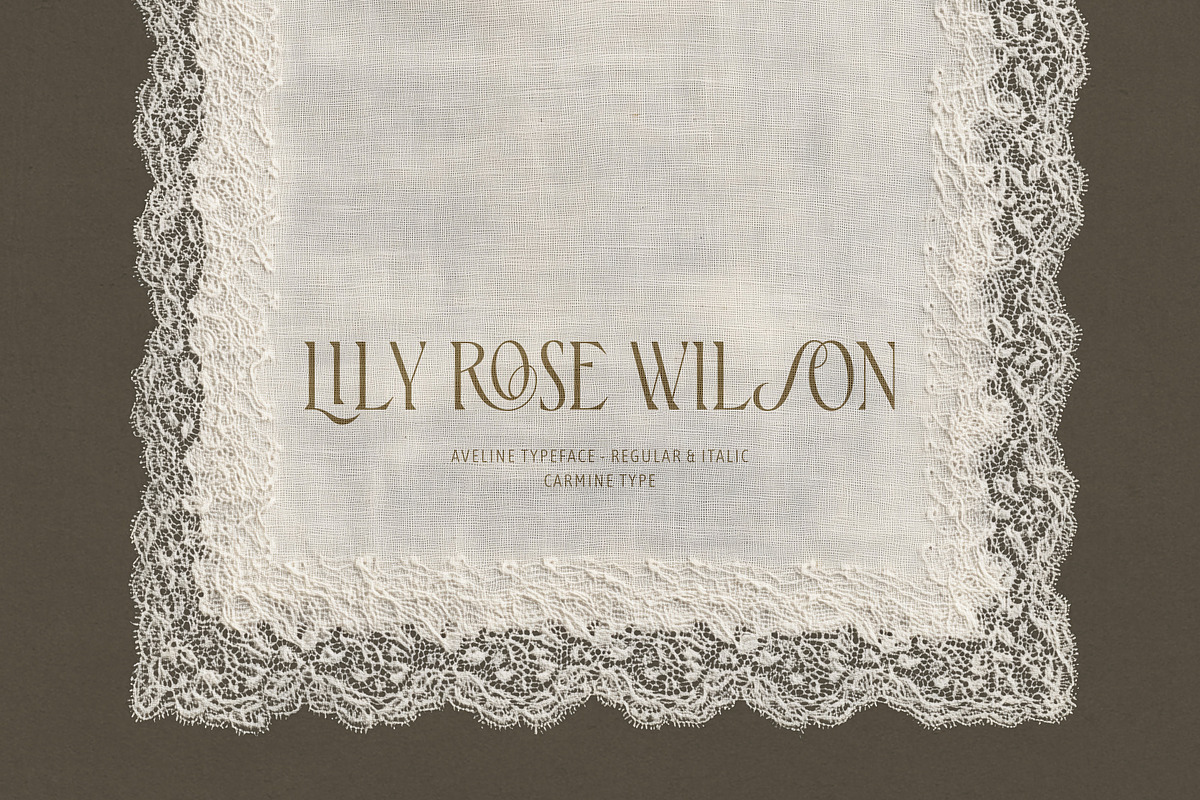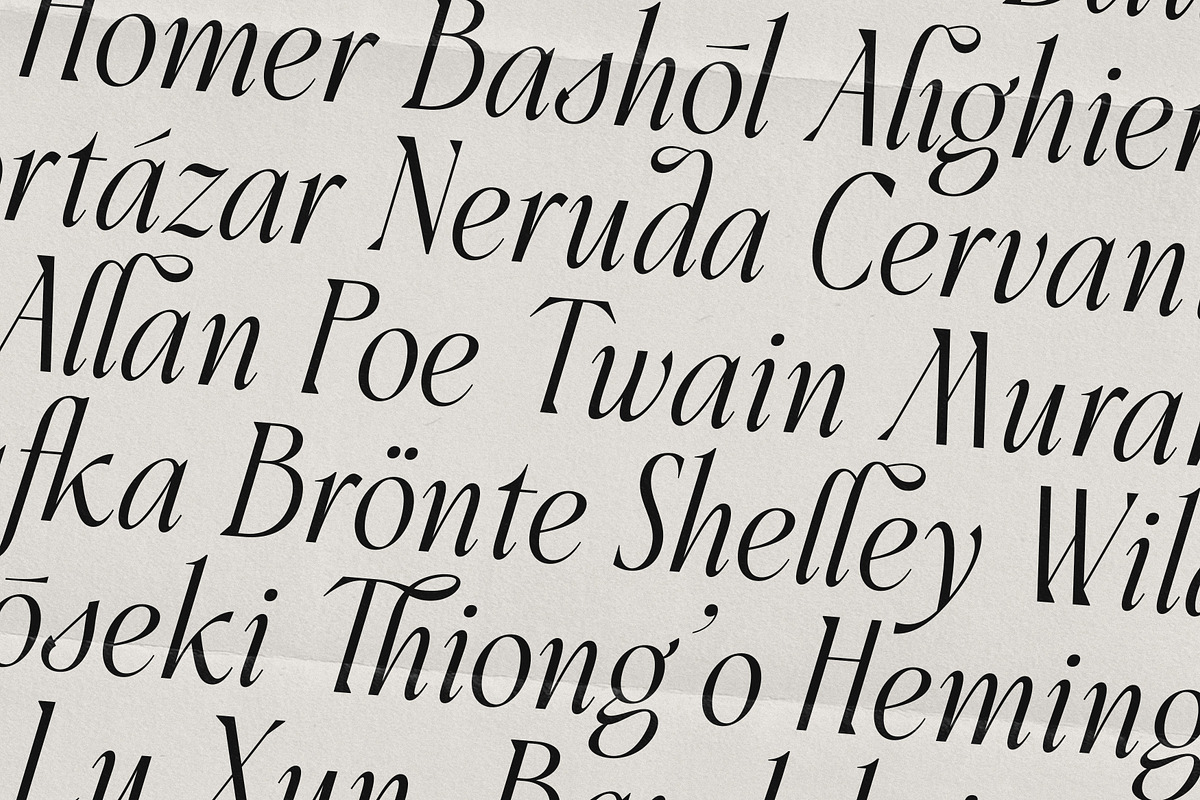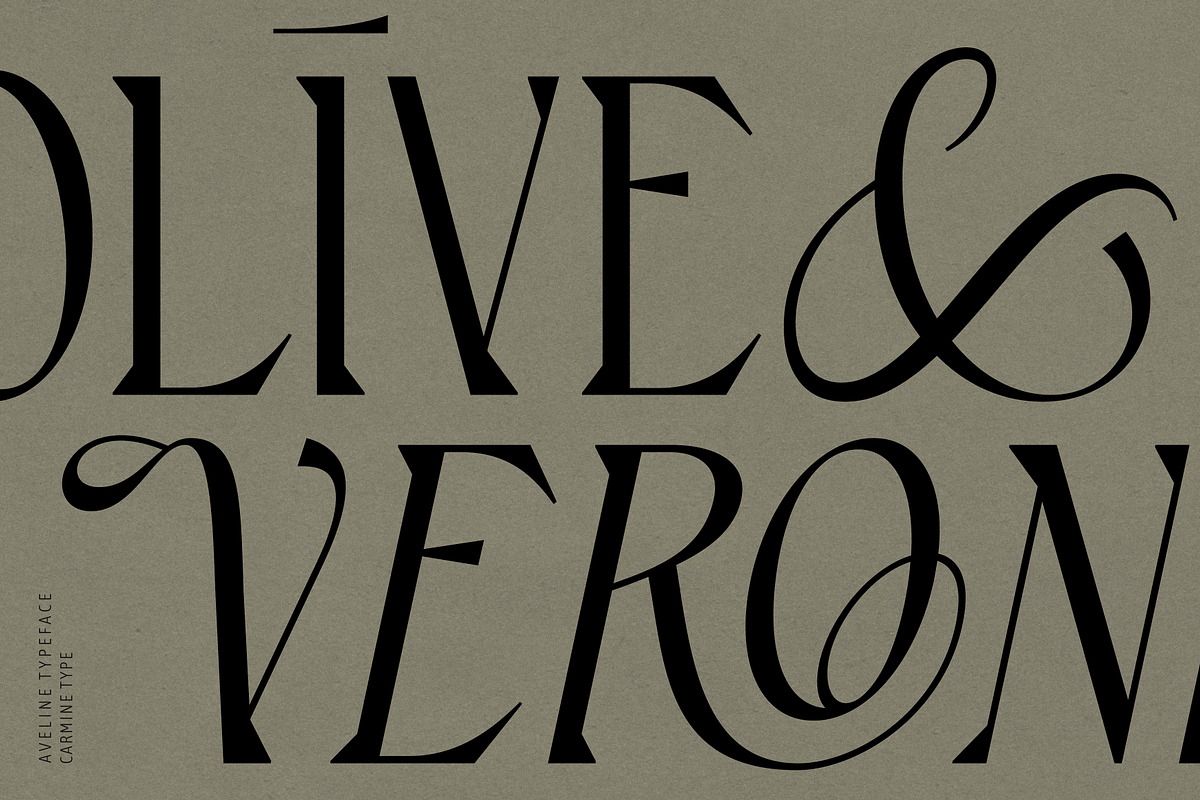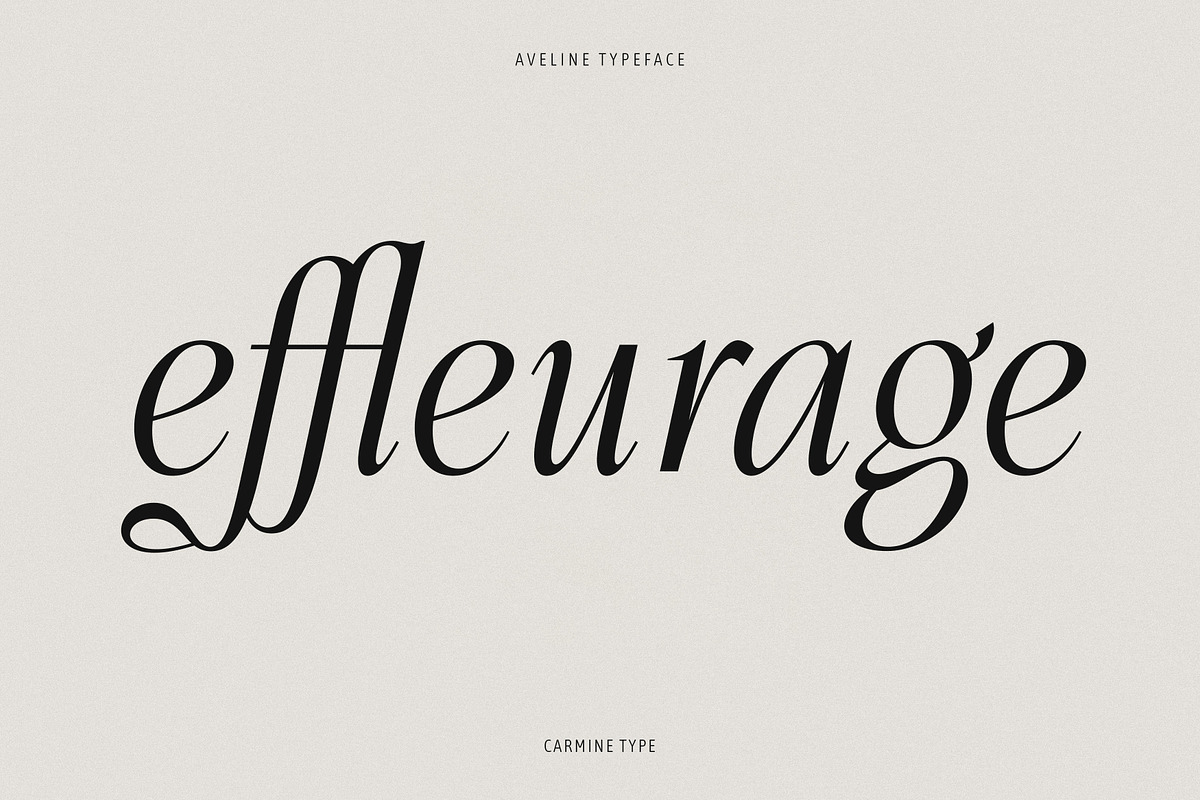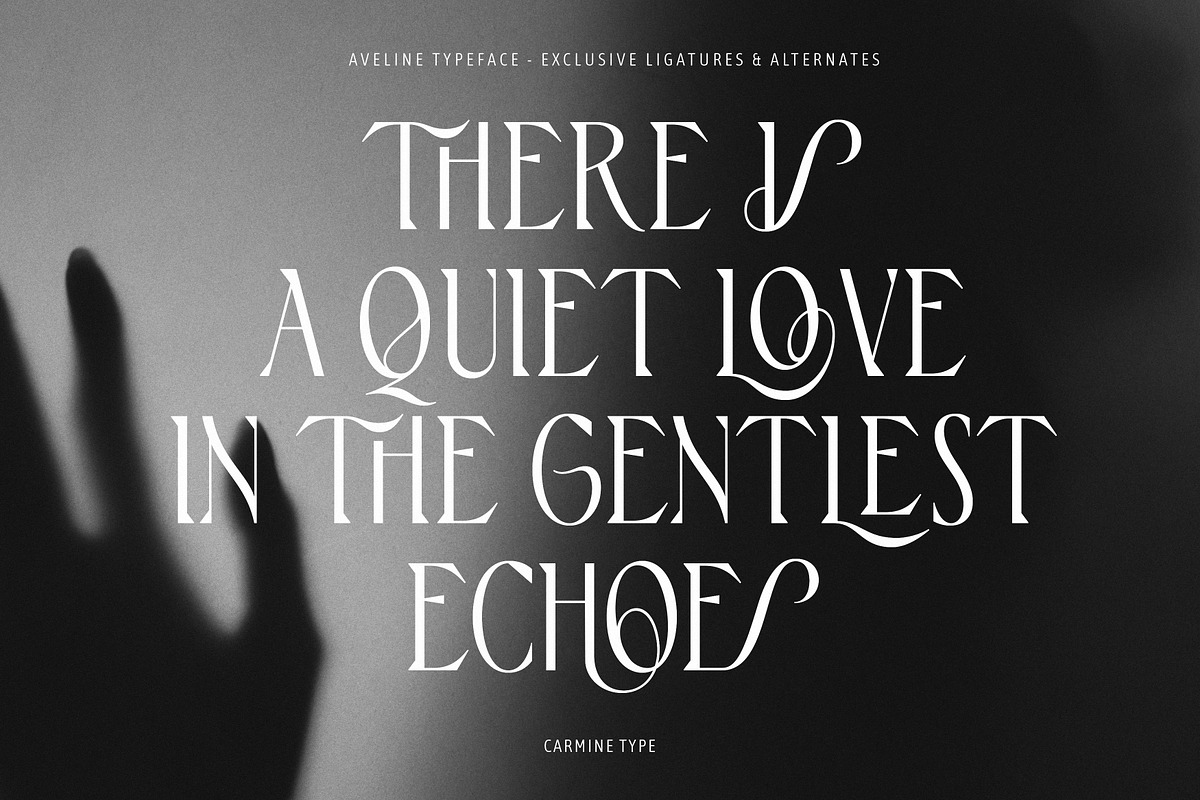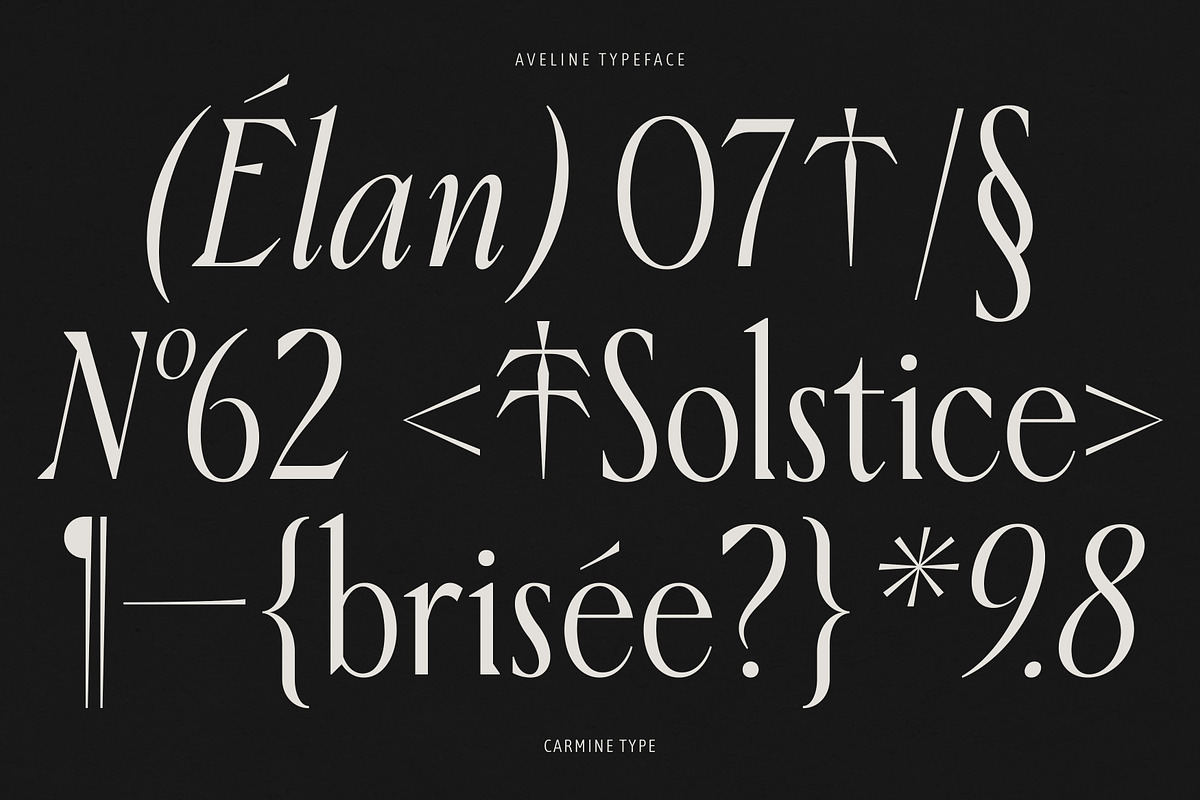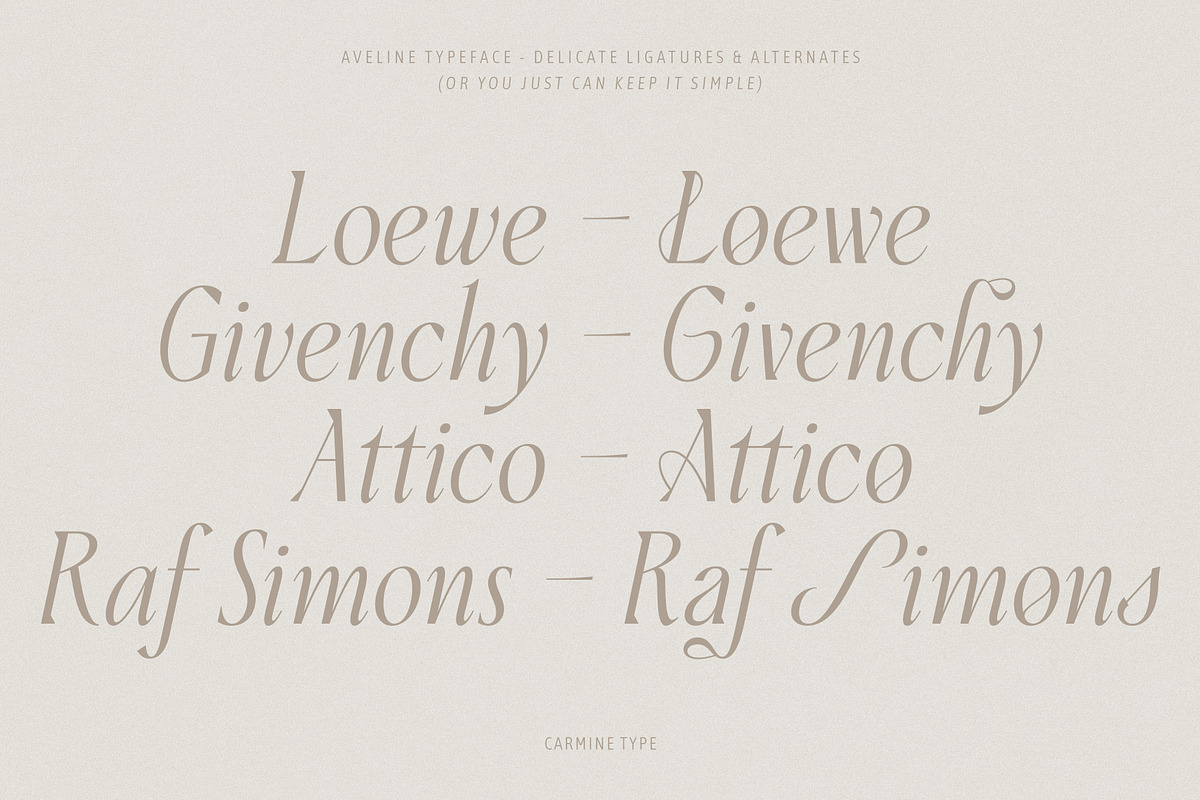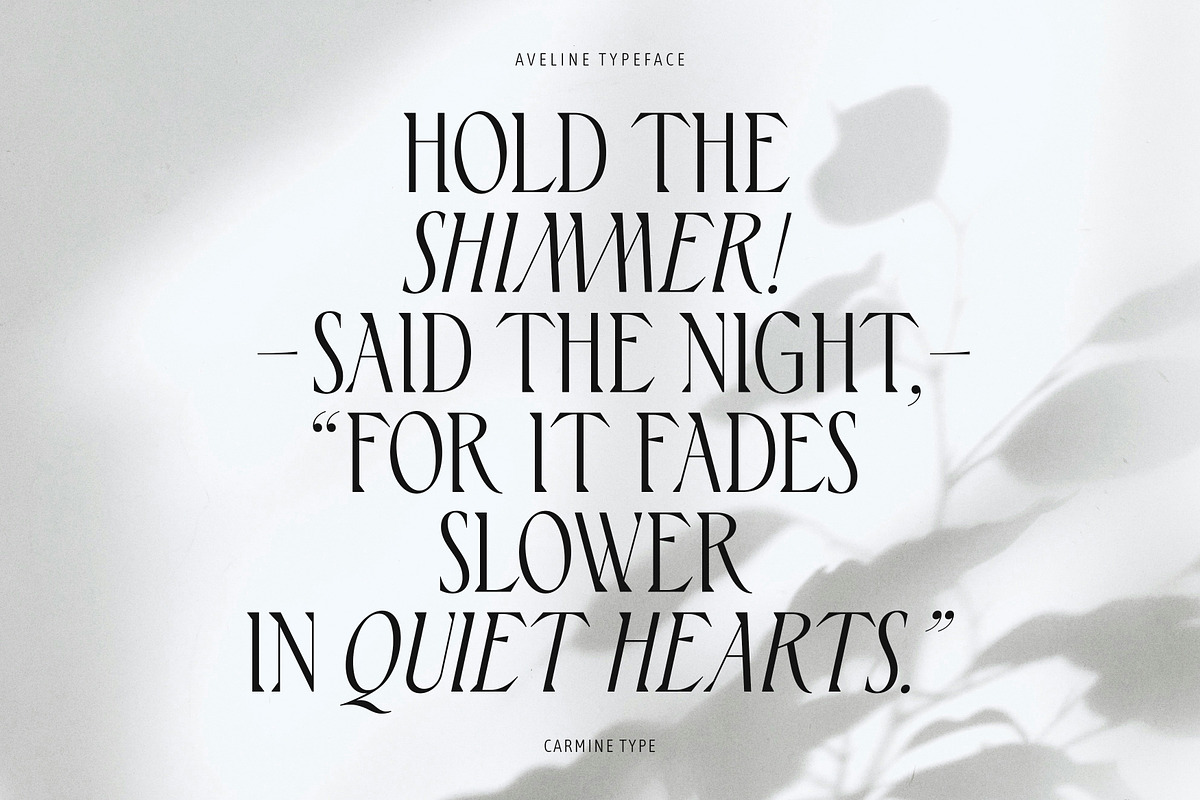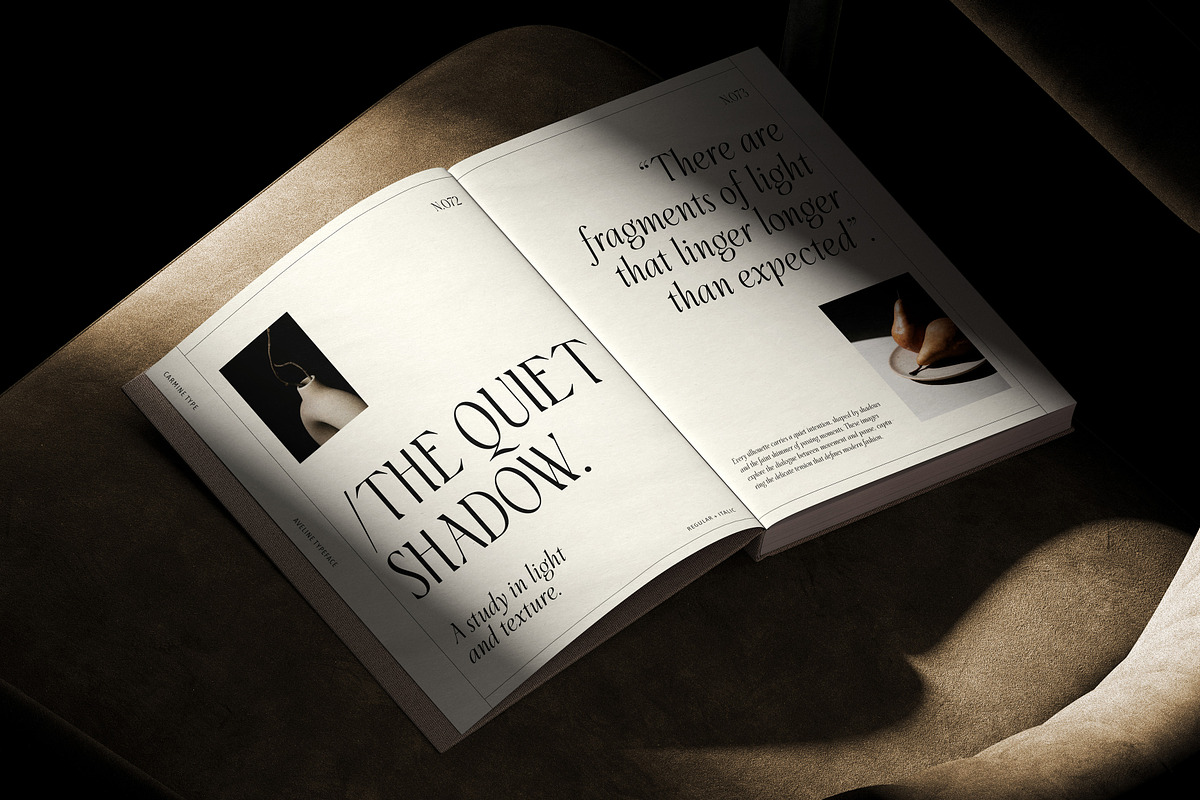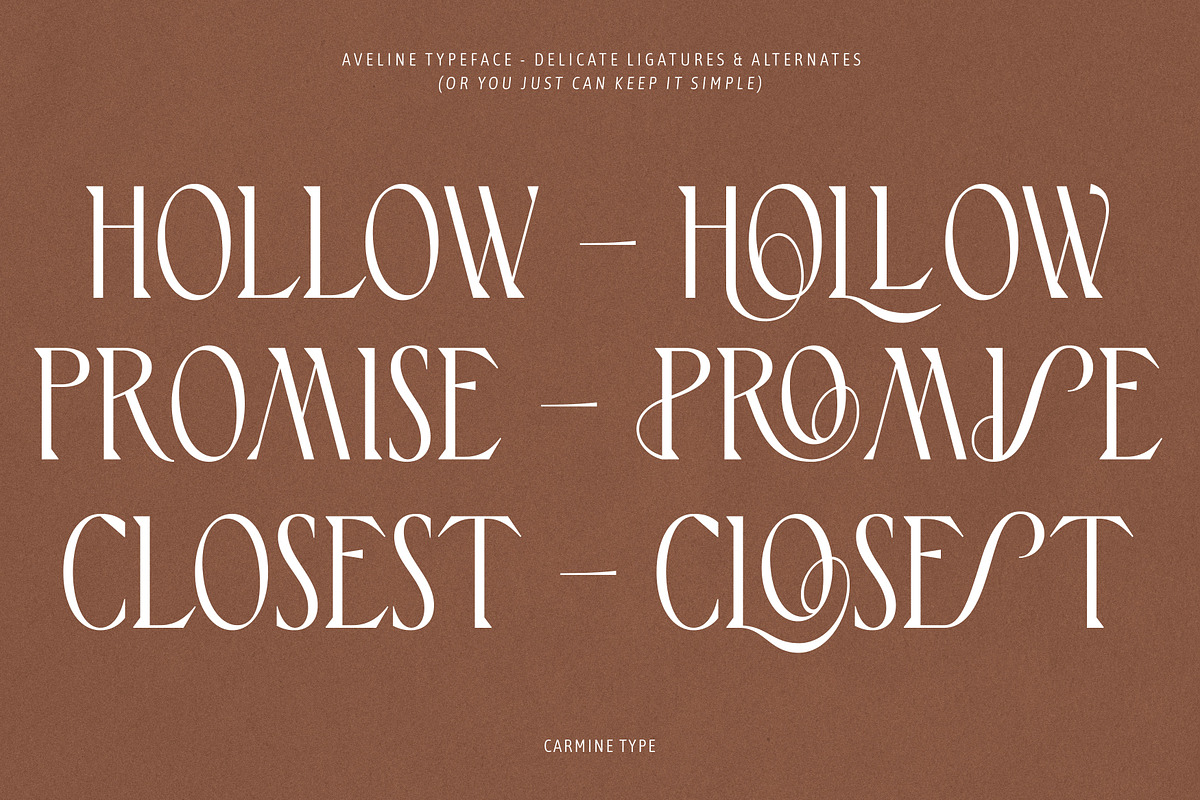
Aveline, Soft Serif with Ligatures
Aveline is a versatile hybrid serif, a meeting point between the clarity of a modern sans and the subtle charm of a serif. Created primarily for display, it also reads beautifully in text blocks, thanks to its balanced proportions and its two styles: Roman & Italic.
Its sophisticated ligatures and discreetly Victorian-inspired alternates add a touch of romance without becoming ornamental or overwhelming. The detailing is gentle, intentional, and designed to give each word a quiet sense of personality.
Aveline includes an extensive set of alternates and ligatures, allowing endless combinations and nuances. Whether you’re working on titles, branding, editorial layouts, packaging, or visual identities, the typeface adapts with ease thanks to its hybrid construction.
- 170+ carefully crafted ligatures and alternates
- Multilingual support (Western, Central & Eastern European languages)
- Full punctuation, numerals & Opentype Features.
- Editorial design
- Fashion & beauty branding
- Luxury packaging
- Romantic titles & visual identities
- Posters, magazines, books
- Refined digital content